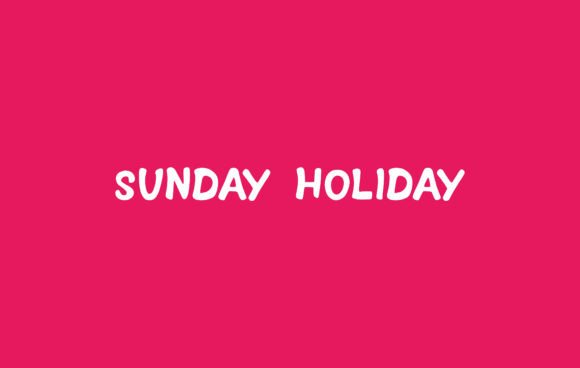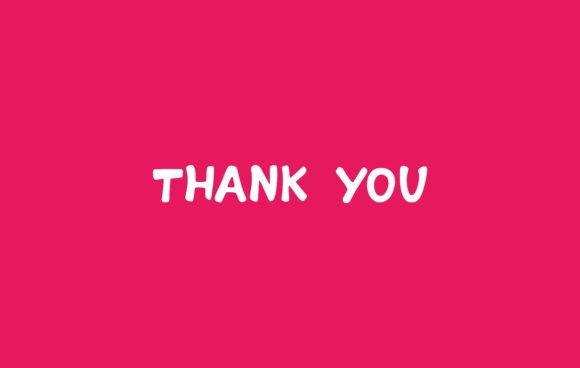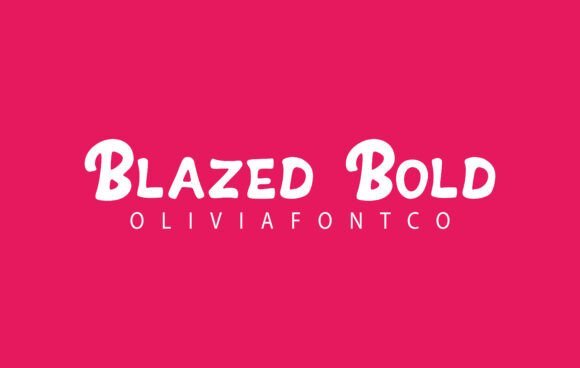
Introduction to Blazed Bold Font
Blazed Bold font is an authentic handwritten font with a romantic touch.
Key Features of Blazed Bold Font
Why Choose Blazed Bold Font?
Blazed Bold Font offers exceptional quality and versatility, making it a valuable addition to your design toolkit. Whether you’re creating for personal projects or commercial use, Blazed Bold Font delivers professional results.